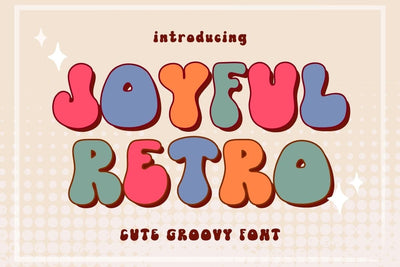
Joyful Retro - Cute Groovy Font
Introducing Joyful Retro, a cute and groovy font that will help you enjoy and have fun with your designs. This font is perfect for creating all sorts of fun and creative projects, from social media graphics to handmade products. This font is perfect for a variety of projects, including T-shirts, Logos, Stickers, Invitations, Greeting cards, And more!